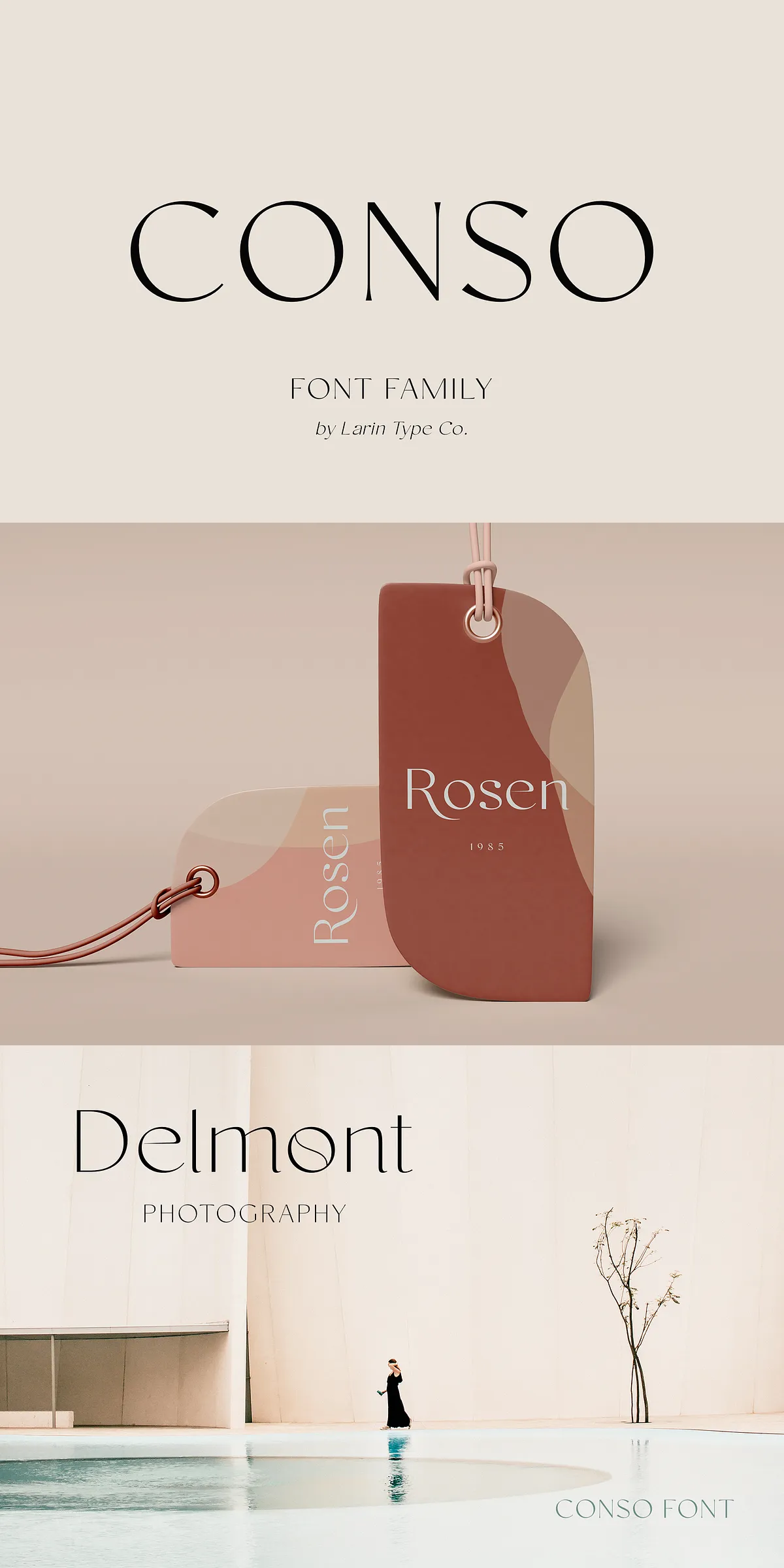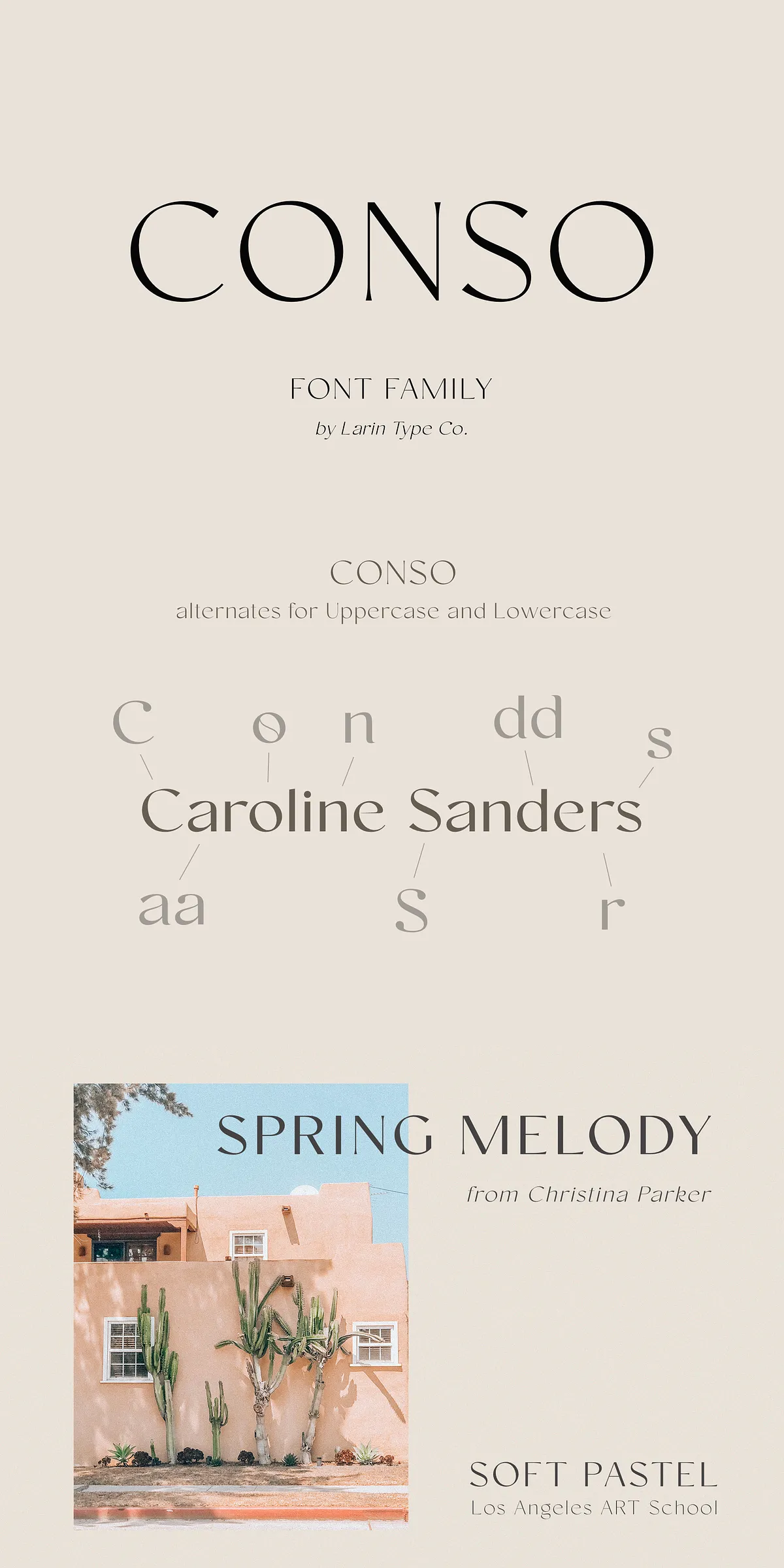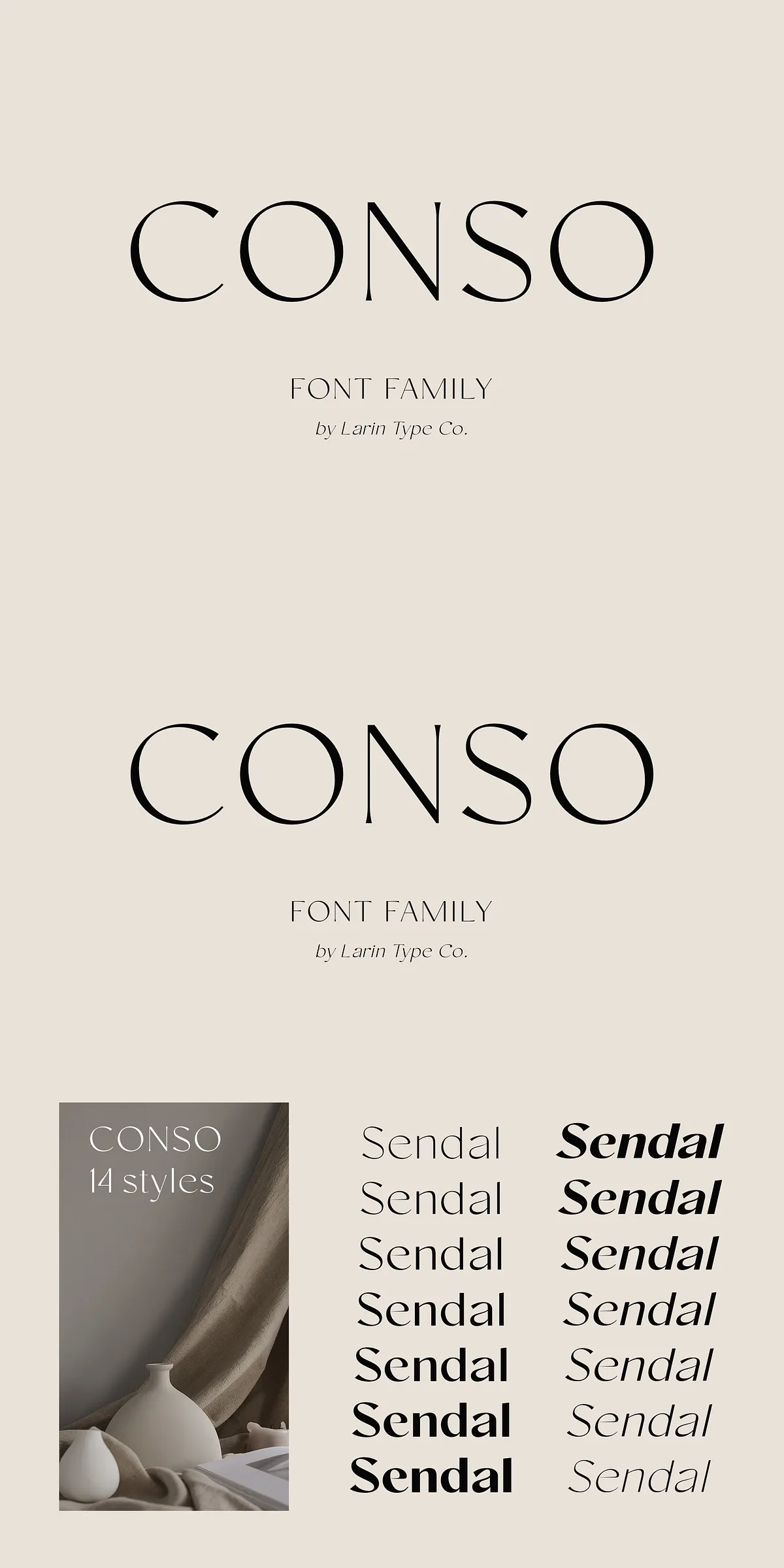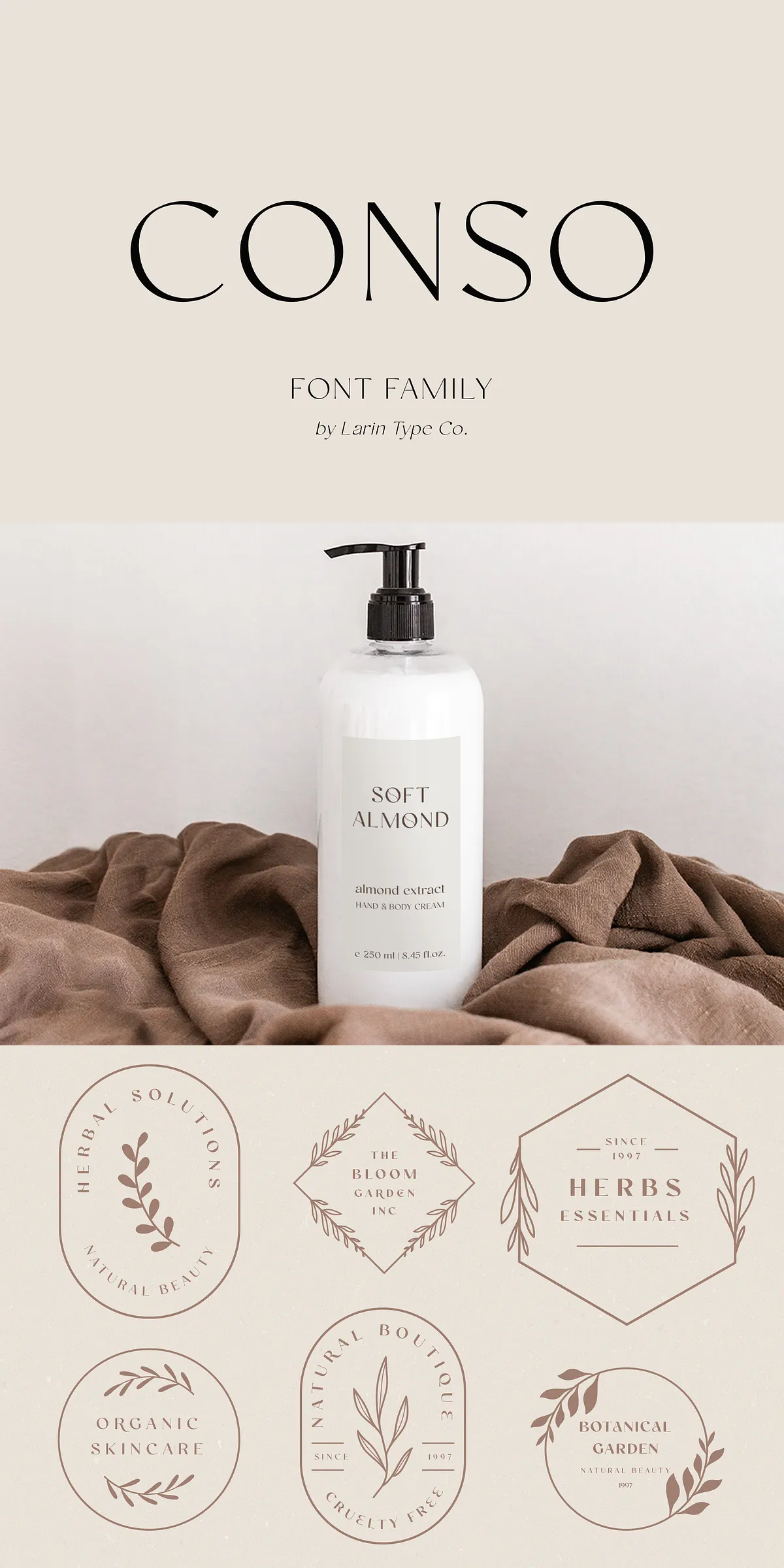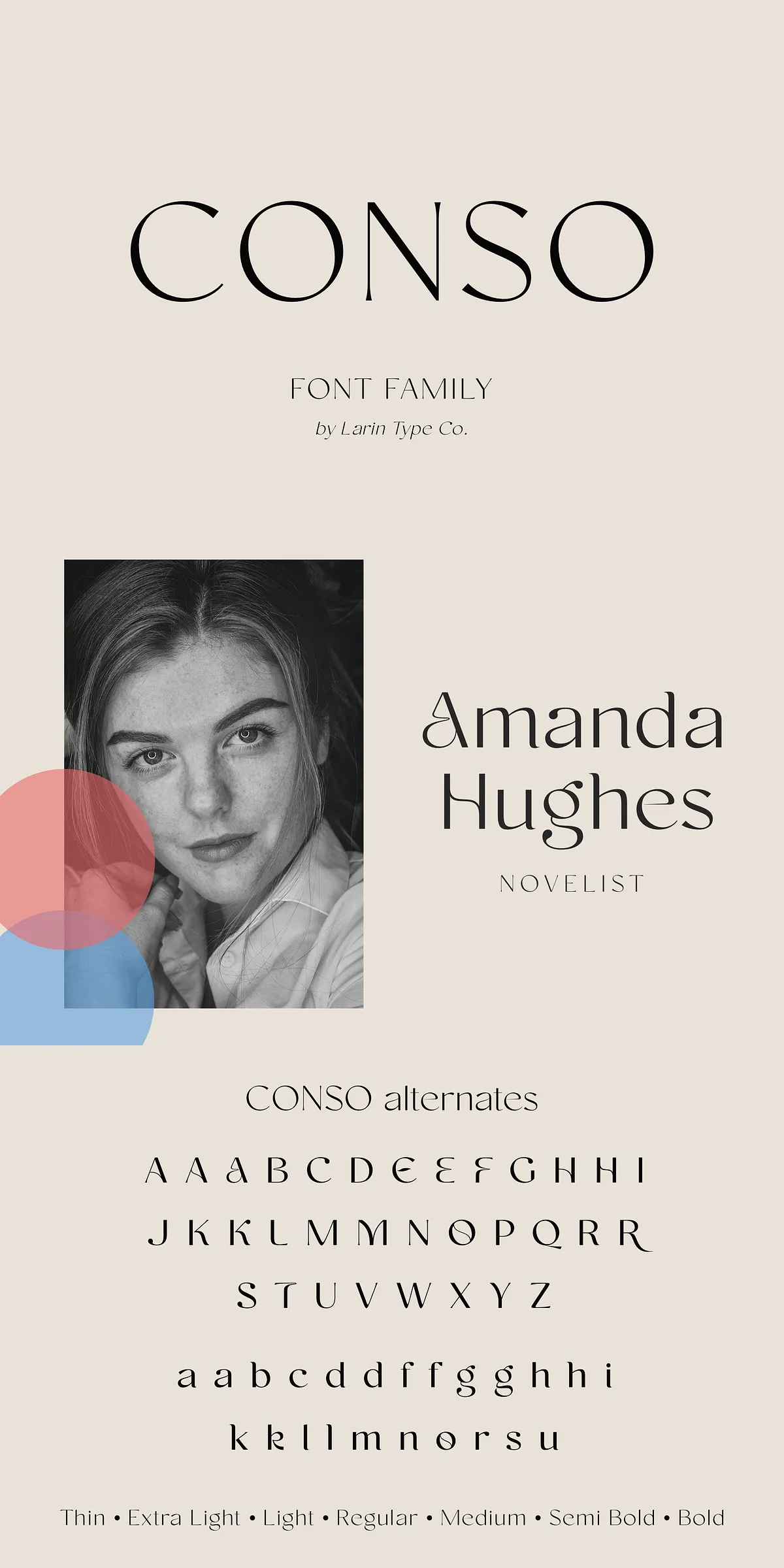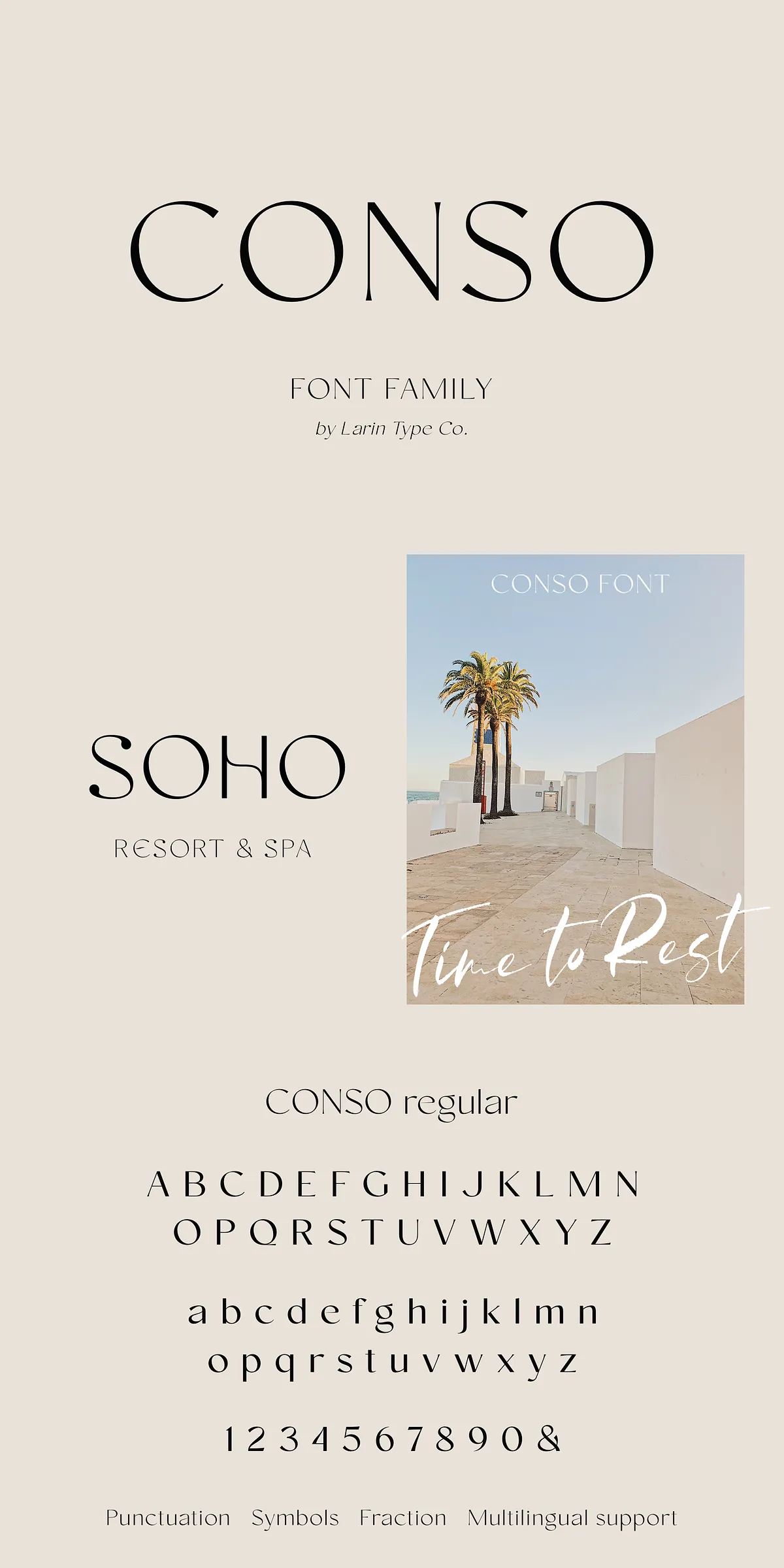
Meet CONSO — a modern, bold, and refined sans-serif font family designed for creators who demand clarity, contrast, and confidence in every line. With its clean geometry, elegant spacing, and strong visual presence, CONSO doesn’t just communicate — it commands attention. Whether you’re building a brand identity, crafting a magazine layout, or designing packaging that stands out on the shelf, CONSO delivers precision, professionalism, and a touch of high-end sophistication.
Seven Weights, One Masterpiece: From Thin to Bold
Every design moment deserves the right weight. CONSO gives you seven powerful weights — **Thin, Light, Regular, Medium, Semi-Bold, Bold, and Heavy** — so you can create strong visual hierarchy, dramatic contrast, and dynamic rhythm in your layouts. Use the Thin weight for subtle emphasis or elegant headers. Go bold for powerful headlines, logos, and poster statements. The consistent stroke modulation across all weights ensures smooth transitions and perfect balance, no matter how you scale or pair them.
Style That Speaks: Upright & Italic with Character
CONSO isn’t just functional — it’s expressive. Each weight comes in both upright and Italic styles, giving you the flexibility to add motion, emotion, and elegance to your design. The Italic variant offers graceful slants and refined ligatures, perfect for narrative copy, quote blocks, or elegant headings that need a touch of grace. This dual-style approach makes CONSO ideal for editorial design, corporate branding, and digital content that requires both power and poise.
Elevate Your Design with Stylistic Alternates
Want to add personality and uniqueness? CONSO includes stylistic alternates featuring a distinctive teardrop-shaped tail on key uppercase and lowercase letters (like ‘A’, ‘G’, ‘Q’, ‘y’, and ‘g’). These alternatives aren’t just decorative — they’re tools. Use them to differentiate your project from generic designs, enhance visual flow, or introduce subtle flair without losing readability.
- Teardrop Tail Alternates — Add elegance and motion to your fonts.
- OpenType Smart Features — Access alternates with a single click in compatible software.
- Multilingual Compatibility — Full support for European, Central, and Eastern European languages.
Global Reach, Universal Support
CONSO isn’t designed for just one region — it’s built for the world. The font includes comprehensive character support for over 30 languages, including full coverage of:
À Á Â Ã Ä Å Ą Ç Ć È ÉÊ Ë Ę Ì Í Î Ï Ð Ñ Ñ Ł Ò Ó Ô Õ Ö Ø Ù Ú Û Ü Ś Š Ÿ Ý Ź Ż Ž ß
à á â ã ä å ç è é ê ë ì í î ï ð ñ ò ó ô õ ö ø ù ú û ü ý ÿ ą ć ę ł ń ś š ź ż ž
This ensures your design remains professional and correct — no matter where your audience is. Whether you’re creating an international brochure, a multilingual website, or a European fashion label, CONSO adapts seamlessly.
Engineered for Designers: OpenType & PUA Power
CONSO is not just a font — it’s a toolkit. Built with full OpenType support, it unlocks advanced typographic features like:
- Stylistic Alternates
- Ligatures for smoother text flow
- Multiple number styles (oldstyle, tabular, proportional)
- Special character sets for mathematical, technical, and multilingual use
Perfect for: High-Impact, Professional Design
Use CONSO to deliver powerful, polished results across a wide range of applications:
- Branding & Logo Design — Create sleek, modern, and trustworthy identities.
- Advertising & Campaigns — Build headlines and taglines that grab attention.
- Book Covers & Magazines — Add class and authority to editorial layouts.
- Product Packaging — Make your brand look premium and professional.
- Web & App UI — Use the web-optimized versions for flawless digital reading.